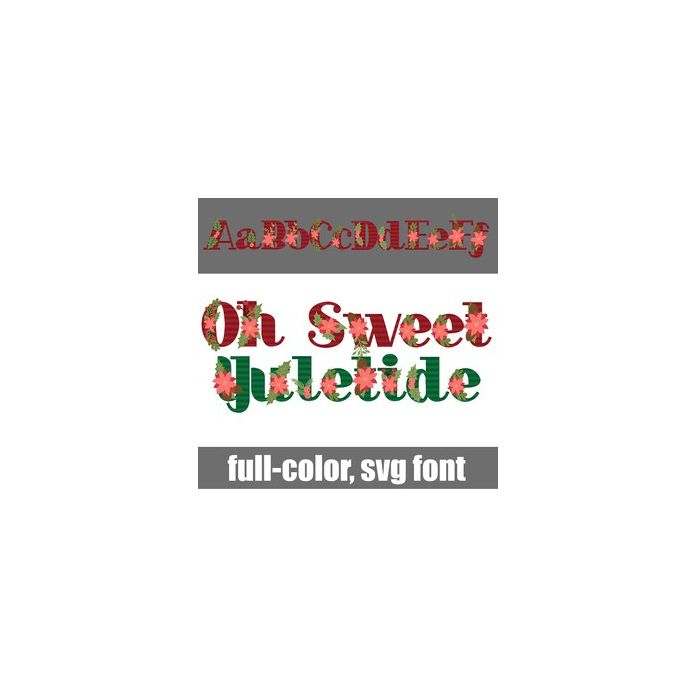
This full-color font features pretty serif lettering in holiday colors with Christmas florals. There is an alt case w/ additional colors you can access through your system or Silhouette's glyph map.